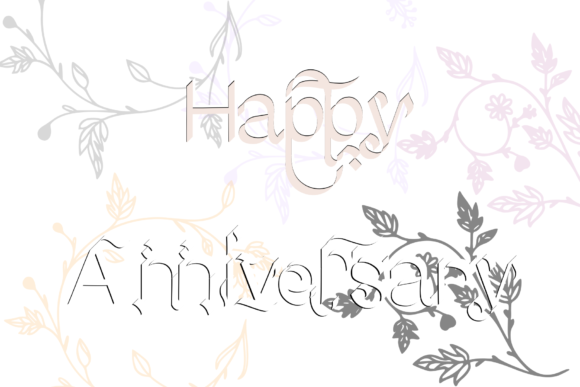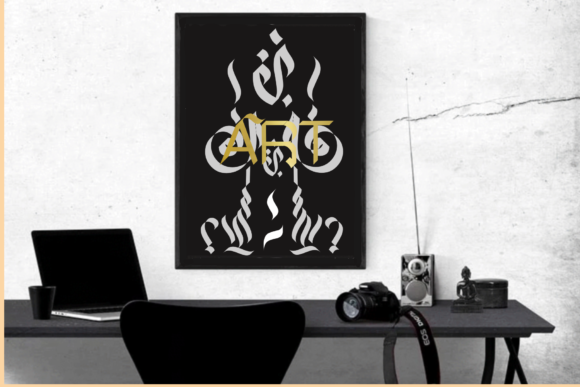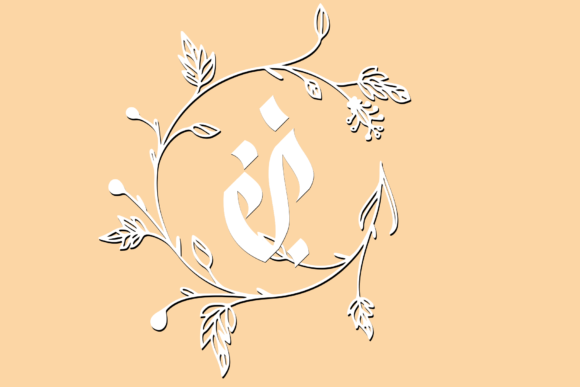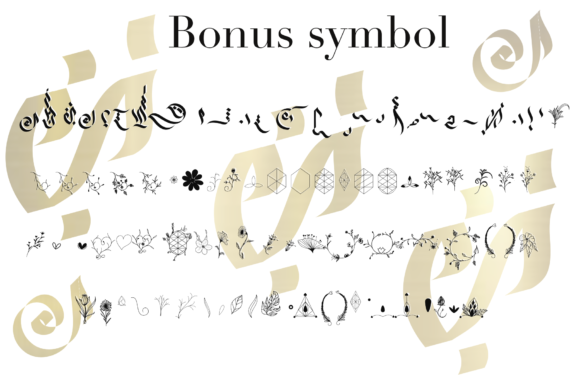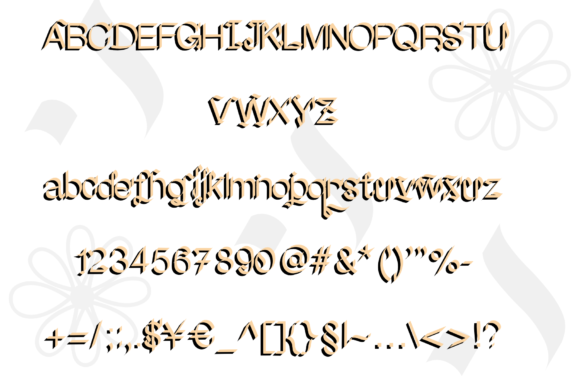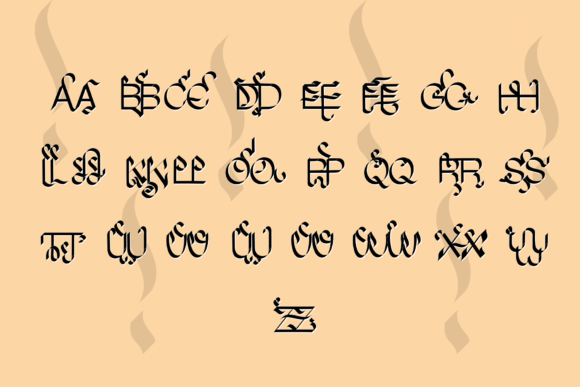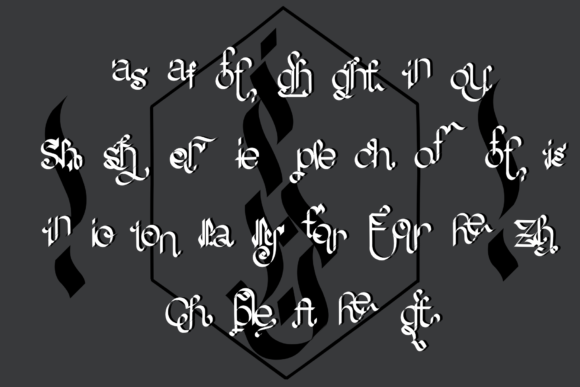
Happy Anniversary
Happy Anniversary: A Gorgeous and Playful Slab Serif Font
Happy Anniversary is a distinctive slab serif font that combines gorgeous design with playful character. This versatile typeface is designed to elevate the look of any beautiful creation, making it an excellent choice for a wide range of projects.
Key Features of Happy Anniversary
• Gorgeous Design: Features beautiful letterforms that add elegance to designs.
• Playful Character: Incorporates unique and lively elements that bring joy to typography.
• Slab Serif Structure: Maintains the characteristic thick, rectangular serifs typical of slab serif fonts.
• PUA Encoded: Allows easy access to all glyphs and swashes for enhanced design flexibility.
• Versatile Application: Suitable for elevating the look of various beautiful creations.
Ideal Uses for Happy Anniversary
Happy Anniversary’s unique characteristics make it particularly well-suited for:
• Anniversary cards and invitations
• Wedding-related designs
• Celebratory event materials
• Greeting cards and stationery
• Social media graphics for special occasions
When incorporating Happy Anniversary into your designs, consider the following tips:
• Utilize the PUA encoding to access all glyphs and swashes for creative typography
• Experiment with different sizes to highlight the font’s playful details
• Consider pairing with complementary sans-serif fonts for body text to create contrast
• Take advantage of its versatility across various celebratory themes
Happy Anniversary is an excellent choice for designers looking to add a gorgeous and playful slab serif font to their typographic toolkit. Its unique character and PUA encoding make it stand out in the world of typography. Whether you’re working on logo designs, creating layouts for special events, or developing any project that requires a touch of celebration, Happy Anniversary offers the perfect blend of beauty and playfulness.
Add Happy Anniversary to your creative projects and explore how it can elevate your designs with its gorgeous and playful style. From charming anniversary cards to engaging social media graphics, this font provides the tools to create impactful and memorable typography that resonates with audiences seeking a touch of joy and elegance in celebratory designs. It’s versatile enough to be used in various contexts, from vintage-inspired designs to cute and friendly layouts.
Whether you’re creating a magical and mysterious atmosphere or aiming for a more thoughtful and introspective mood, Happy Anniversary can adapt to your needs. Its flexibility allows it to work well in both rustic, vintage-style projects and holiday-themed designs. For those looking to add a touch of nostalgia to their work, this font can even complement vintage Christmas-inspired creations.